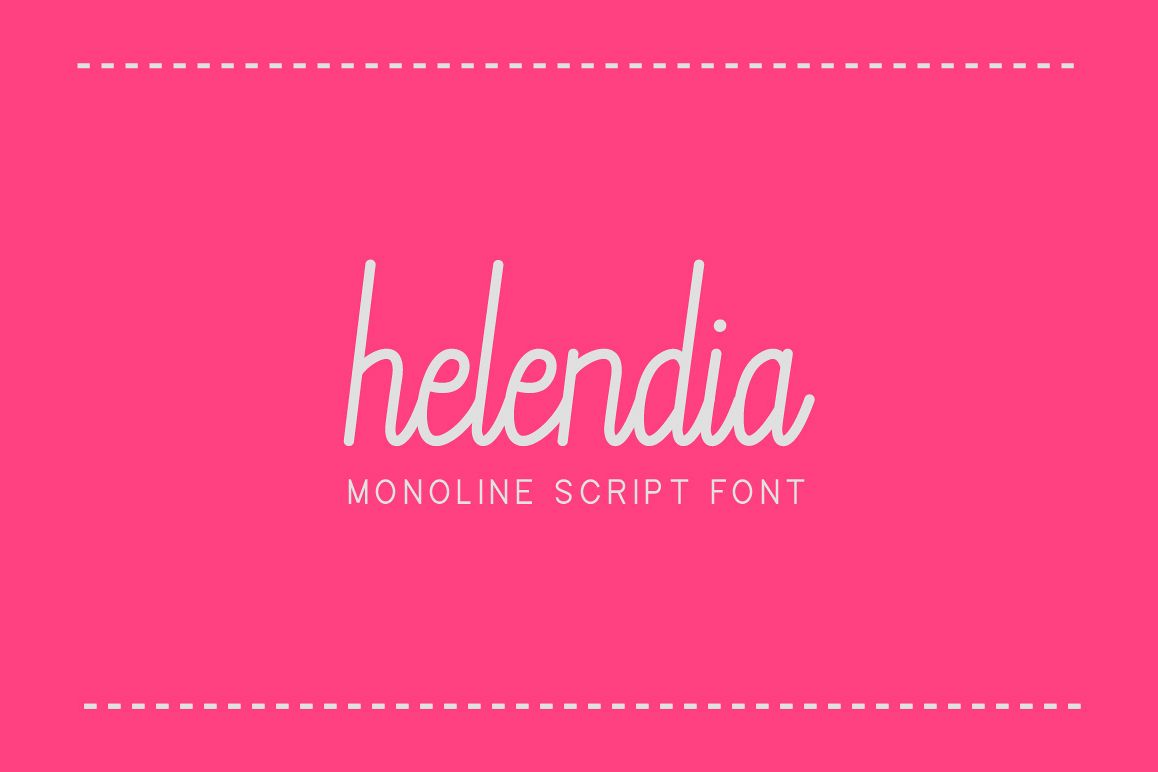
Helendia
Helendia is a smooth and lovely round font. It is perfectly suited for a wide variety of projects!
For you who needs a typeface for headline, logotype, apparel, invitation, branding, packaging, advertising etc.